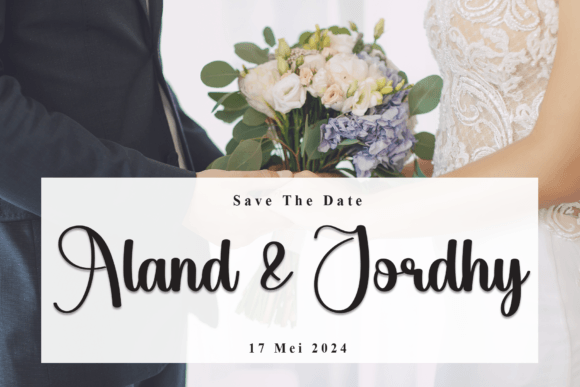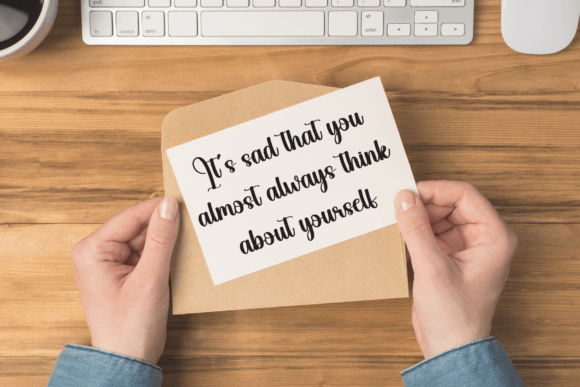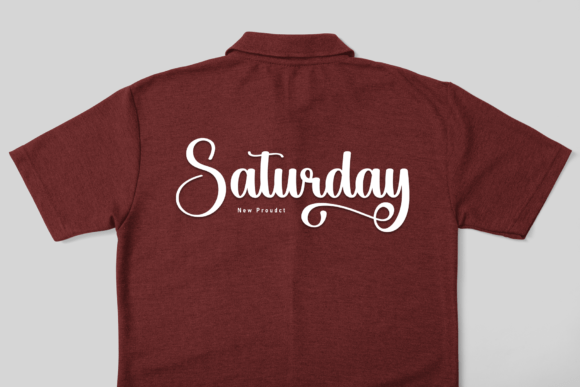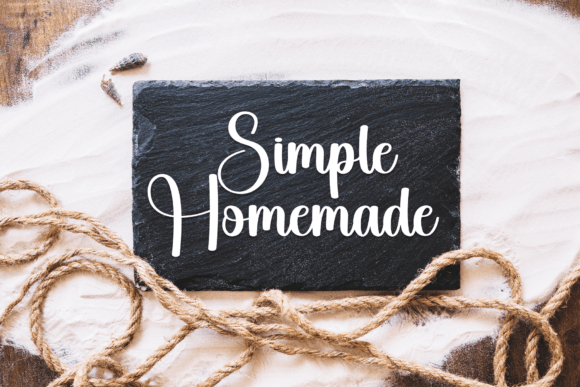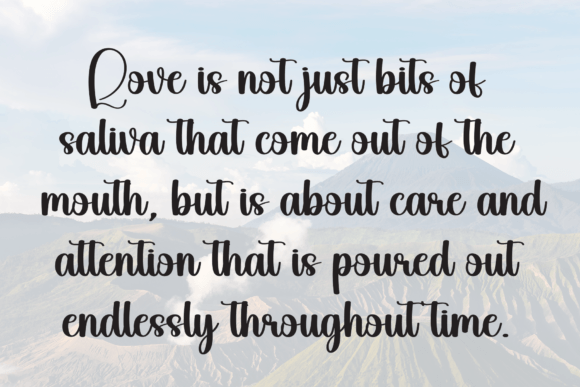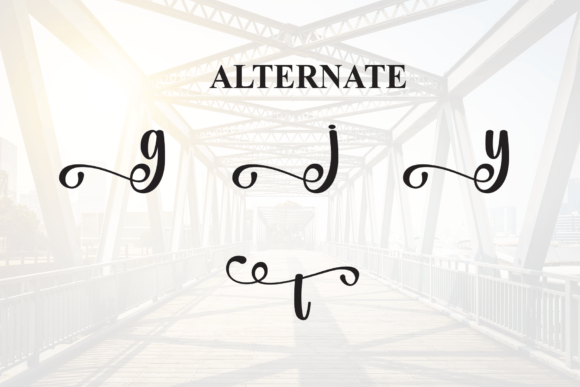
The Perfect Script: Unveiling the Beauty of Bridgerton Font
Have you ever stumbled upon a beautiful handwritten quote on a social media post, only to find yourself scrolling endlessly, searching for the perfect font to recreate the magic? We’ve all been there. For designers, the quest for the perfect script font is a never-ending journey, and today, we’re excited to introduce you to a game-changer: Bridgerton Font.
This stylish and elegant script font is a designer’s dream come true. With its versatility and sophistication, Bridgerton Font is perfect for any design project that requires a handwritten touch. Whether you’re creating wedding invitations, thank you cards, quotes, or logos, this font is sure to elevate your designs to the next level.
As a valuable addition to any designer’s toolkit, Bridgerton Font offers endless possibilities for creativity and self-expression. Its unique charm and elegance make it a must-have for any design project that requires a touch of sophistication and whimsy.
Bridgerton Font Key Features
- Unique Characteristics: The Bridgerton Font features a distinctive, elegant, and refined aesthetic, reminiscent of 19th-century typography, making it perfect for historical and period-themed designs.
- Font Style: The font is available in a single style, with a mix of serif and sans-serif elements, creating a unique and eye-catching visual effect.
Bridgerton Font Review
As a designer, I’ve had the pleasure of working with various fonts, and the Bridgerton Font is one that caught my attention. Here’s my honest review:
- Beautifully crafted letterforms that evoke a sense of elegance and sophistication.
- Perfect for historical or period-themed projects, especially those set in the Regency era.
- Works well in both print and digital formats, making it a versatile choice.
- May be too ornate for some projects, making it difficult to read in certain contexts.
- Lacks a bold weight, which may limit its use in certain applications.
- Some characters may be difficult to distinguish from one another, particularly for those with visual impairments.
The Bridgerton Font is a stunning choice for projects that require a touch of luxury and refinement. While it has some limitations, its unique character and elegant feel make it a worthwhile addition to any designer’s toolkit. With careful selection and use, this font can elevate even the most mundane projects to new heights.
For the most effective use of the Bridgerton font, we recommend using it for titles, headings, and quotes. This font is particularly well-suited for historical or period-themed designs, as well as for creating a sense of elegance and sophistication.